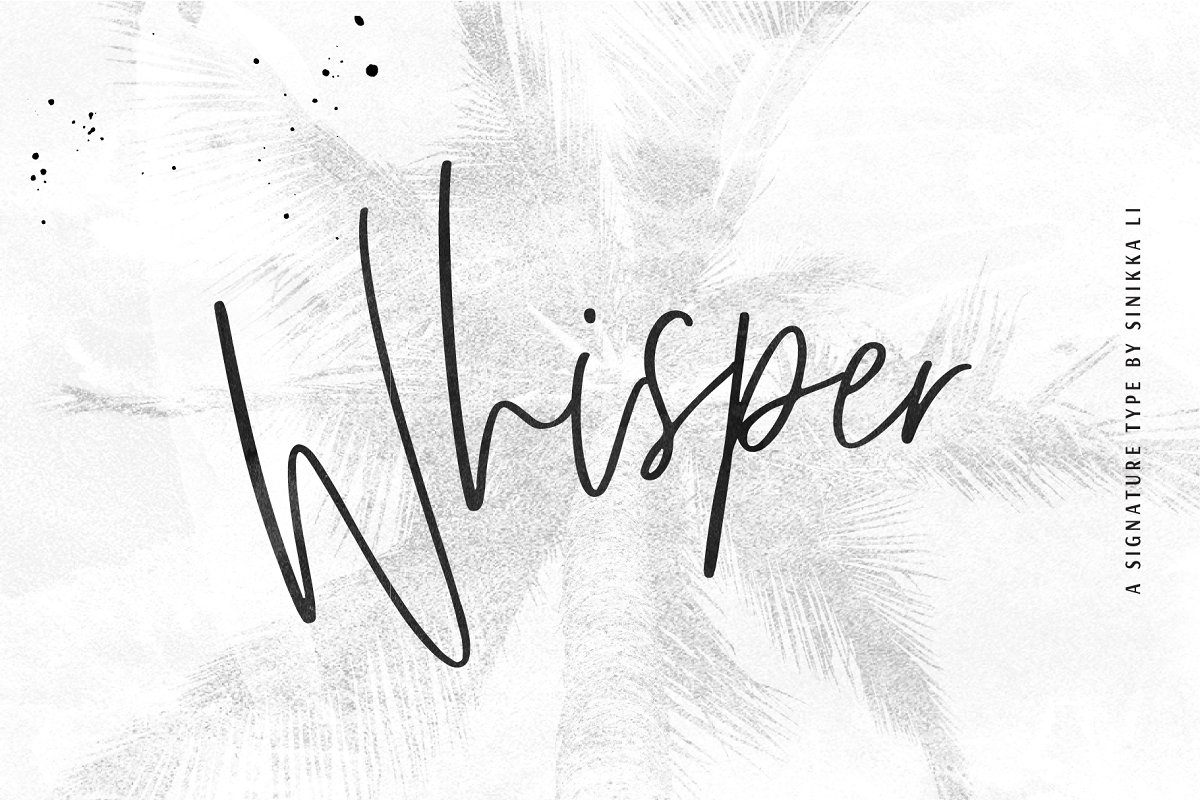
Whispers Calligraphy Font
Whispers Calligraphy Font is broadly famous for its ambitious and italic characteristic. This typeface is a gift inside the google fonts. With this font‚Äôs useful spacing and terrific tool, that seems like learning curve bv font you can without a problem creates any designs of your preference on the manner to provide gold-famous extremely good and legibility. It’s far substantially used for loads of applications fantastically for signage and others rent alike.
You could see that masses of pinnacle-notch factors that this font form can gift and it has hundreds of font weights available as well. Whispers Calligraphy Font Free This font hassle an italic, hand-drawn, ambitious texture. Great for any headline or titling abilities. This font is also appeared because of the carnot allcaps font for text.
It looks as if a thunderstorm font and aqua font. This font is an ordinary font with hundreds of many talents and hundreds of font weights available to offer in reality free inner this. Download This the woodlands font in growing a photograph, fee fashions, and in each unique designing carry out in which protected within the rational recommendation. It has become first launched and it is been very called an entire lot as within the period in-between.
It’s far just like paintings present-day extensively utilized by artists to many layout layouts.